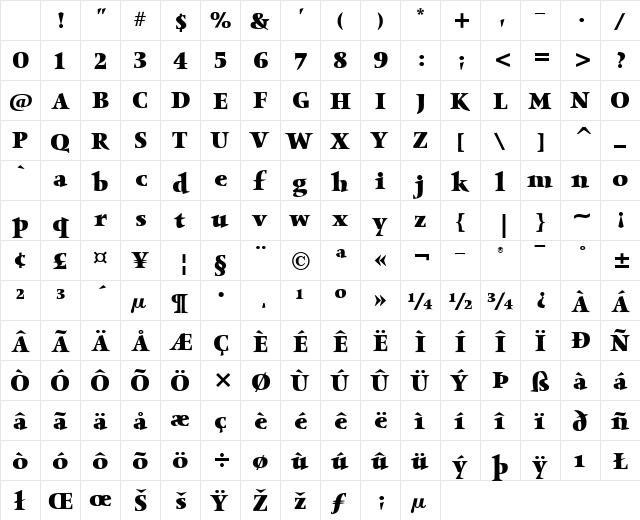
Complete Obelisk ITC Bold glyph index. Displaying only characters natively supported by Obelisk ITC Bold font.
Obelisk ITC is a composed and adaptable typeface that performs quietly and consistently across a wide range of design contexts. Its bold stroke weight gives it real presence on the page.
Who designed the Obelisk ITC Bold font?